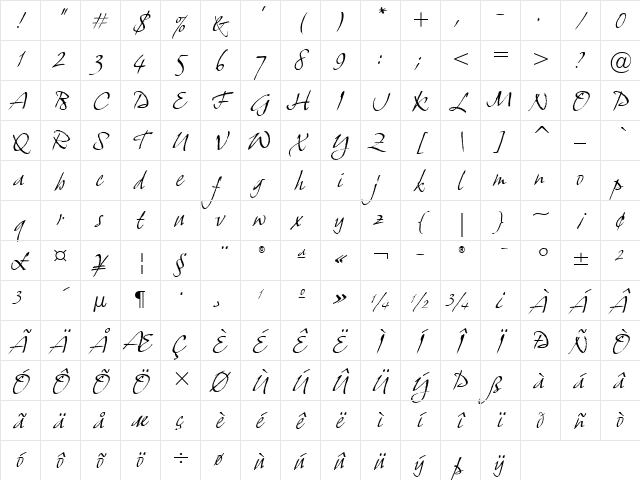
GrimshawHand ITC Italic
Foundry: as an unpublished work by Galapagos Design Group, Inc
Design Context for GrimshawHand ITC
GrimshawHand ITC flows with the natural rhythm of handwritten lettering, making it ideal for designs that call for warmth and personal expression.
Font Pairing: Combine GrimshawHand ITC with a simple geometric sans for maximum contrast - the tension between flowing curves and clean structure is a classic typographic pairing.
Pro Tip: Use GrimshawHand ITC for short runs of text - names, titles, or taglines. Extended body copy in script faces tires the eye quickly.